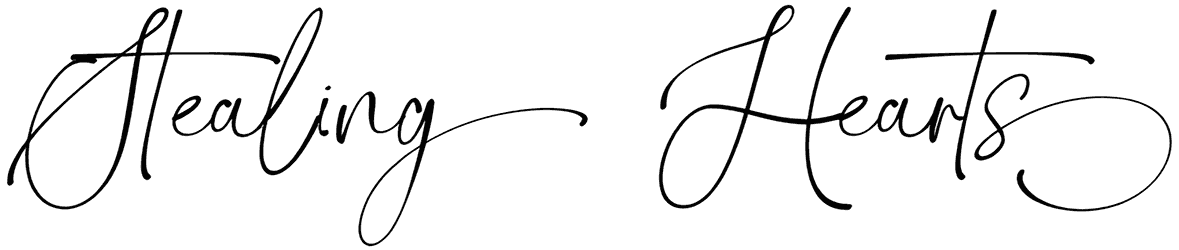
Stealing Hearts Font
Introducing our new handwritten font, Stealing Hearts, which features an elegant, smooth texture with extra swashes that dance through your design, making it much more precious. It has a classy, modern touch and supports all the characters except numerals.
This sexy font is hardly readable in the long text due to its cursive style. It can be a perfect choice for wedding invitations, product packaging, signatures, Valentine’s cards, and other romantic concepts.
Stealing Hearts is a elegant script typeface. Designed primarily as a captivating handcrafted with style. Every swash, stroke, and curve was created to entice happiness and elegance.Stealing Hearts is a elegant script typeface. Designed primarily as a captivating handcrafted with style.